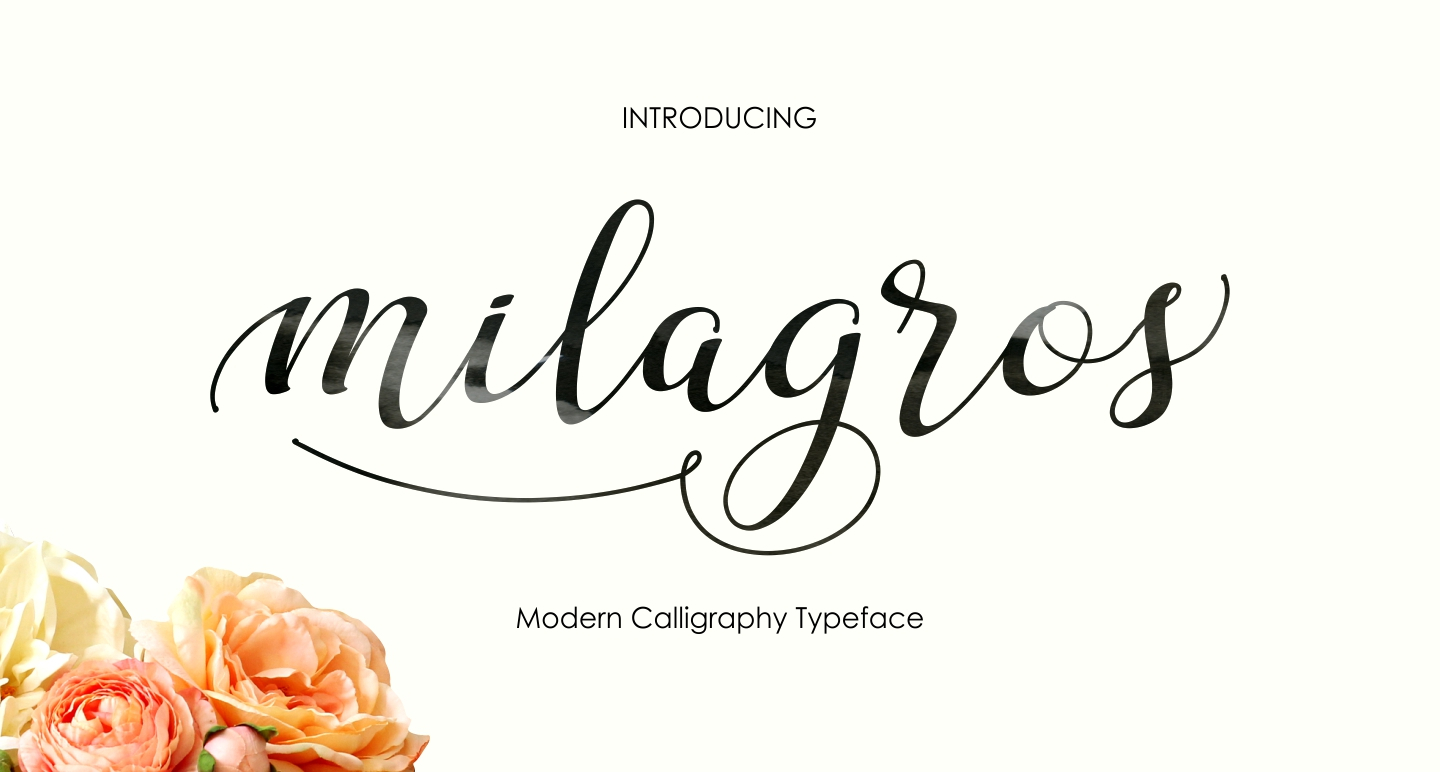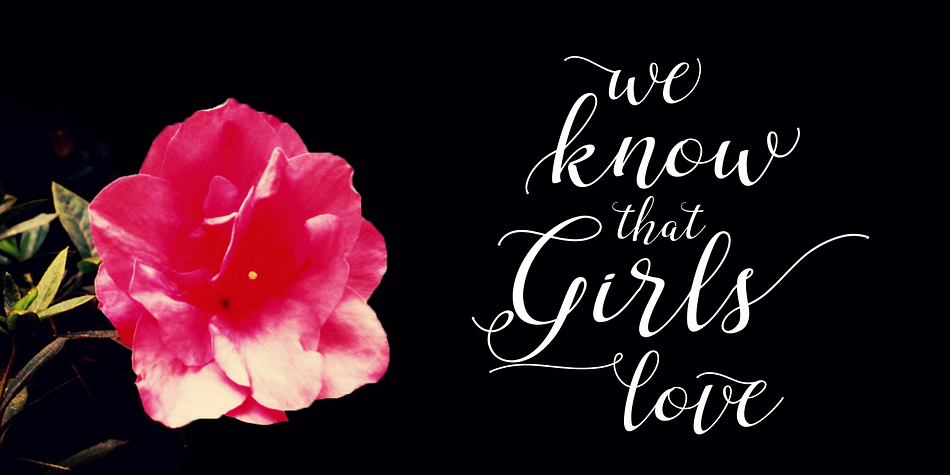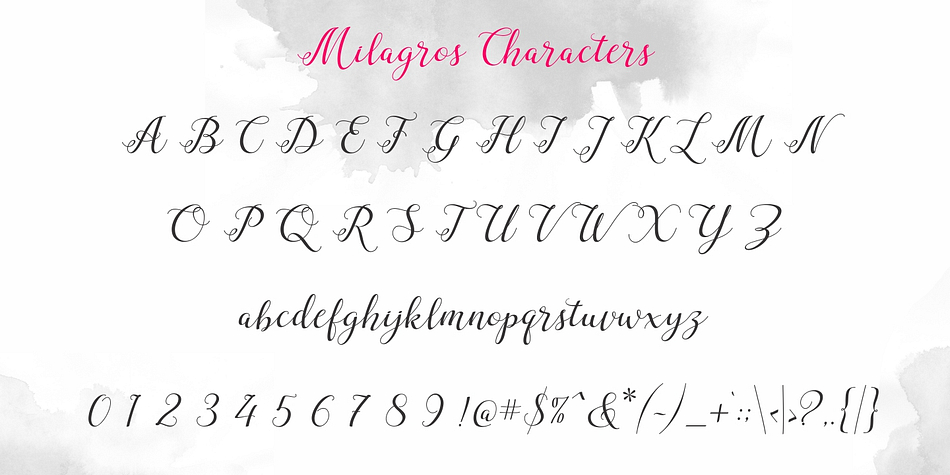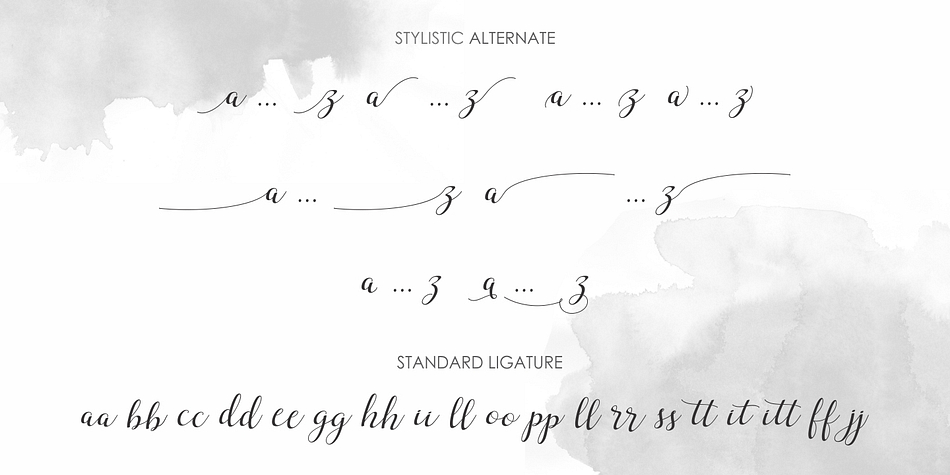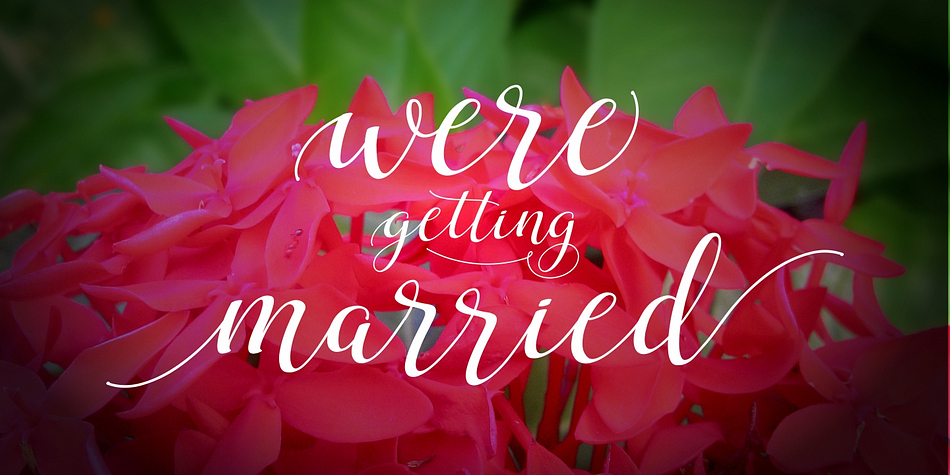
Milagros Script is a script and modern calligraphy font published by Bonjour Type.
Milagros Script is a handwritten stylish modern calligraphy font. It combines characteristics of copperplate and contemporary typefaces along with a dancing baseline. The font will give a modern and elegant touch to your design.
Milagros can be used for various purposes such as headings, signature, logos, wedding invitations, t-shirt design, letterheads, signage, labels, news, posters, badges etc.
Milagros Script features 400+ glyphs and 241 alternate characters. Including initial and terminal letters, alternates, ligatures and multiple language support.